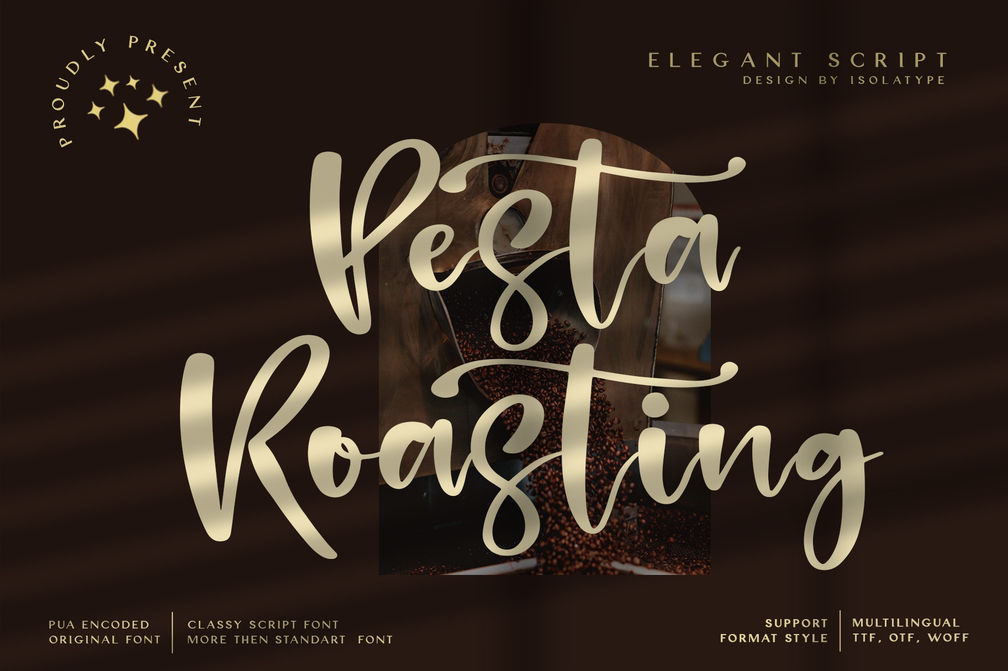
Pesta Roasting
Pesta Roasting is a magical script font carefully created with a touch of elegance. Whether you’re looking for fonts for Instagram or calligraphy scripts for DIY projects, this font will turn any creative idea into a true piece of art!